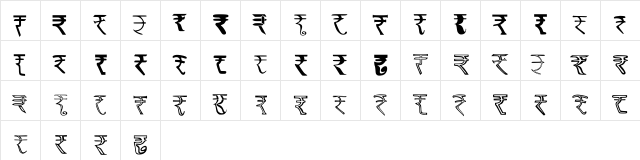
RupyFont2 Medium
Design Context for RupyFont2 Typeface
RupyFont2 takes a measured approach to typography — its balanced proportions and neutral character make it a reliable workhorse for both digital and print work.